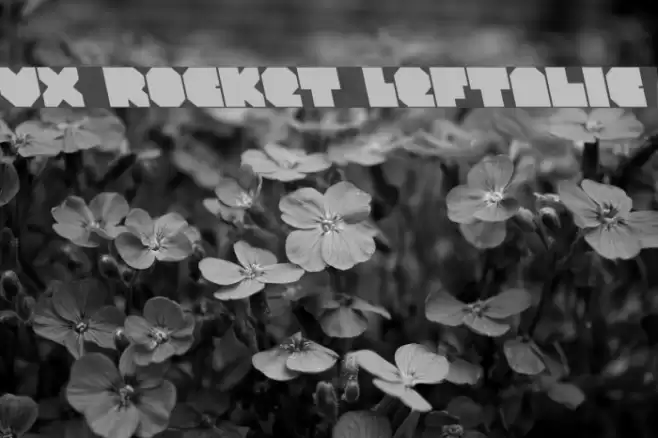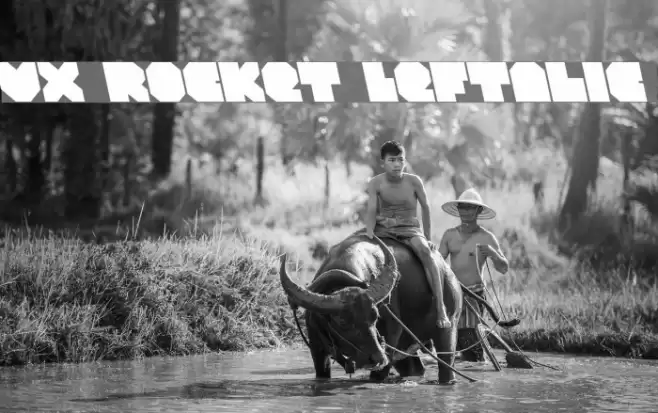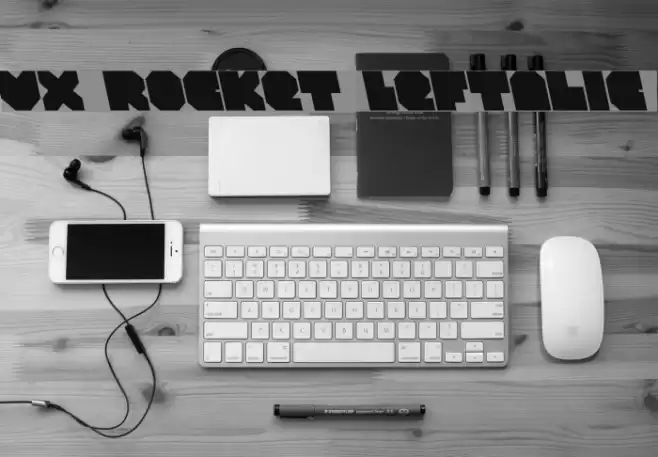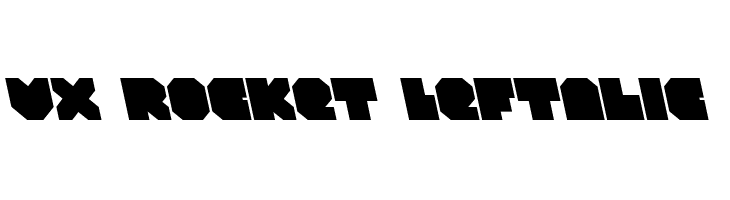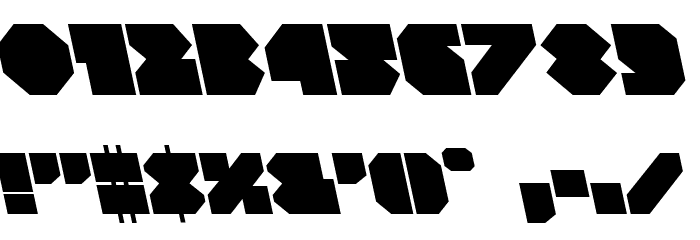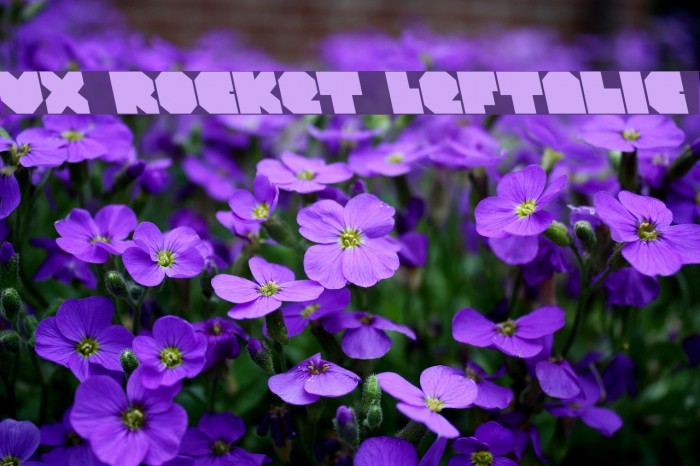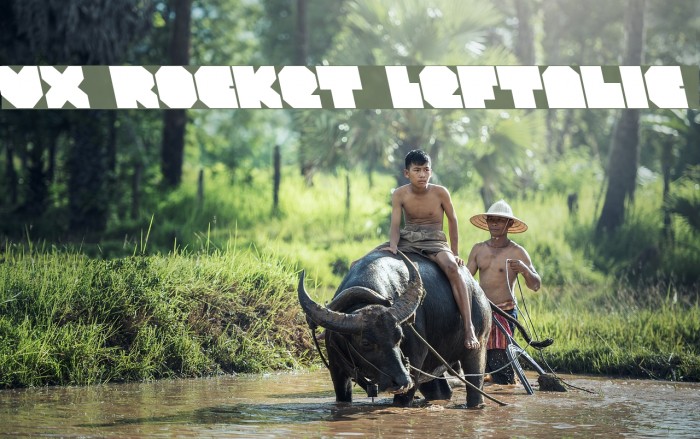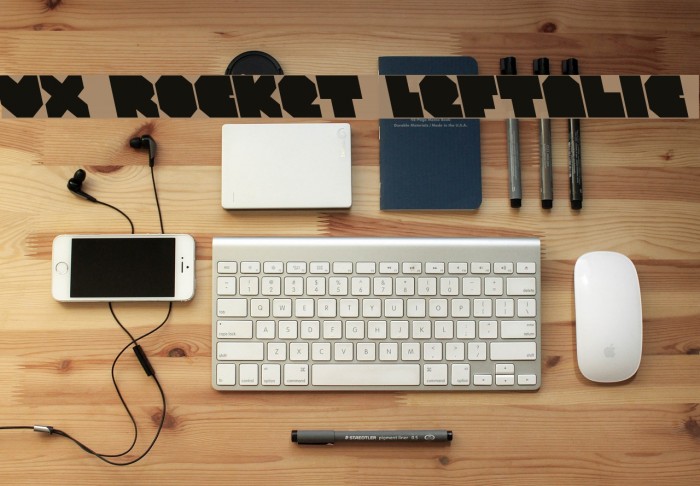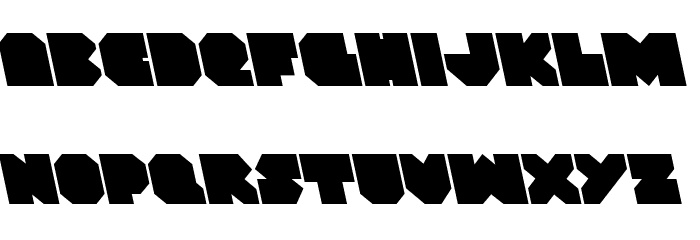
VX Rocket Leftalic Font
VX Rocket Leftalic Description
This font features a bold, geometric design with sharp angles and a futuristic aesthetic. The characters are constructed with solid, block-like shapes that convey a sense of strength and modernity. The uppercase and lowercase letters maintain a consistent style, emphasizing uniformity and cohesion. The numbers and special characters are equally bold, ensuring readability and impact. This font's unique style makes it stand out, suitable for projects that require a strong visual presence.
A bold, geometric font with a futuristic and modern design.
- Proposed Projects: Ideal for branding, posters, video game titles, and sci-fi themed projects.